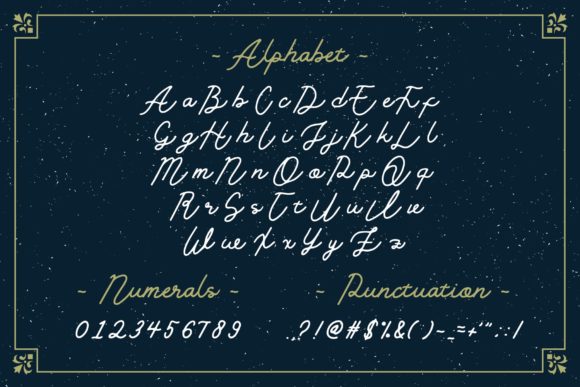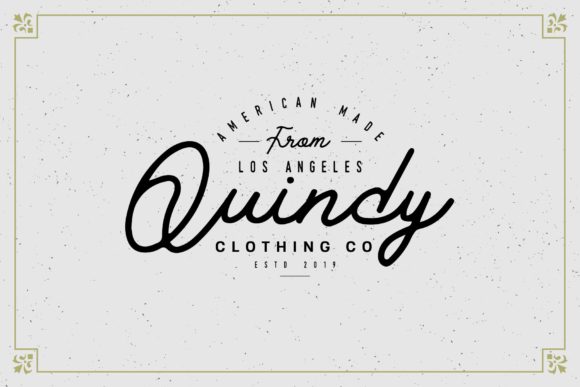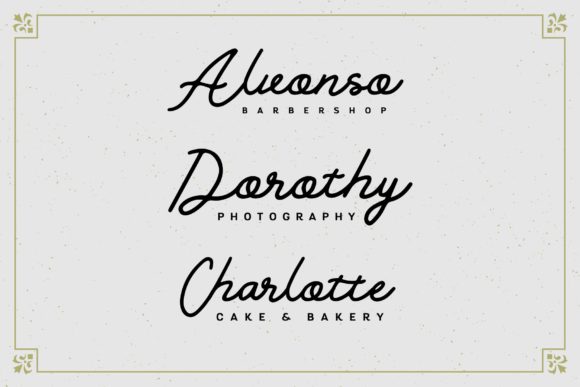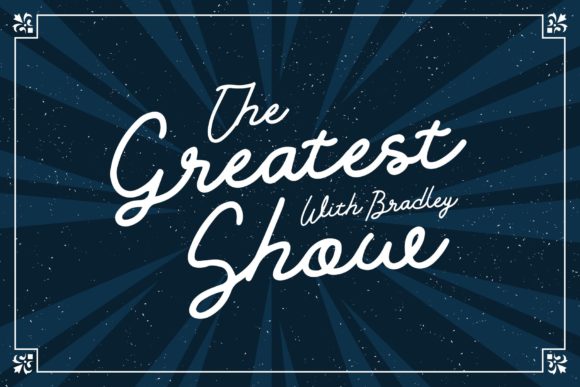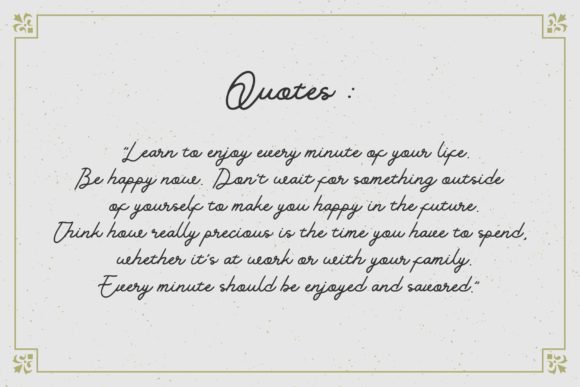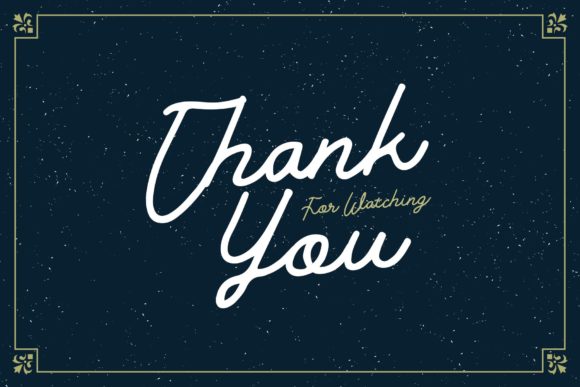
Golden Slayer Font
About Golden Slayer Font
Golden Slayer is a fun and cool handwritten font with a casual feel. It will turn any design project into an eye-catcher!